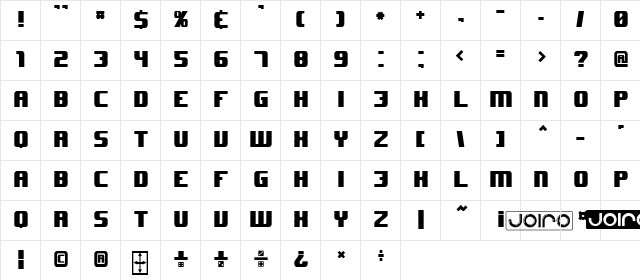
JHUF Nominal
| Designer | Joiro Hatagaya |
Design Context for JHUF Typeface
JHUF offers clean, dependable letterforms without strong stylistic allegiance, making it a practical choice for designers who need flexibility.